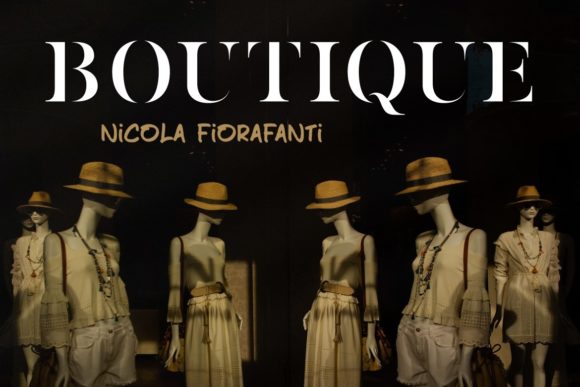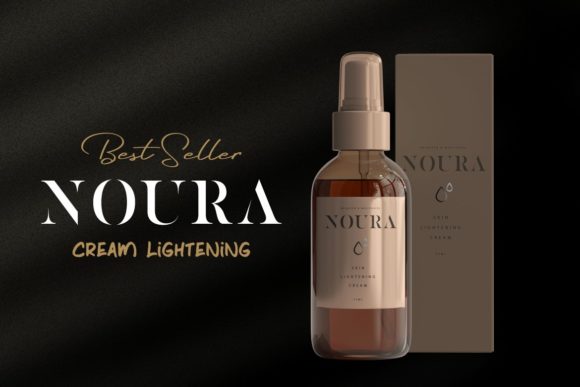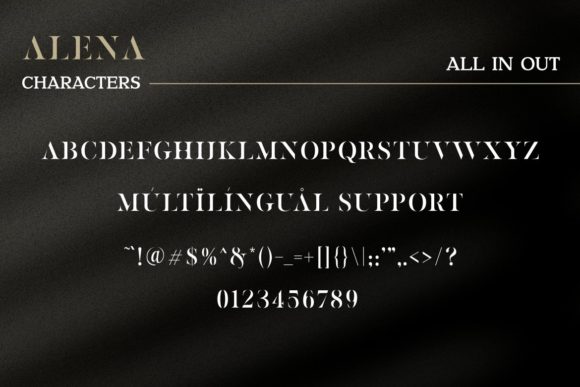
The Ultimate Guide to Alena Font: Elevate Your Designs with this Bold Serif Font
I’ll never forget the time I was working on a fashion branding project, and my client asked me to create a bold, eye-catching logo. I scoured the internet for the perfect font, but nothing seemed quite right. That was until I stumbled upon Alena Font. This cool, bold, and thick lettered serif font has been a game-changer for my designs, and I’m excited to share its awesomeness with you! 😊
An Honest Review of Alena Font
- ✨ Perfect for fashion branding: Alena Font’s bold and edgy vibe makes it ideal for fashion brands looking to make a statement.
- ✅ Easily legible: Despite its boldness, Alena Font remains highly legible, even at smaller sizes.
- 💥 High-impact headlines: This font is designed to make a statement, and it’s perfect for creating attention-grabbing headlines.
- 🤔 Limited use in body text: Due to its boldness, Alena Font may not be the best choice for body text, especially in longer paragraphs.
- ⚠️ Requires careful kerning: As with any bold font, kerning can be a bit tricky with Alena Font. Make sure to adjust the spacing to ensure optimal readability.
- Experiment with OpenType features, such as glyphs and stylistic alternates, to add more personality to your design.
The Backstory of Alena Font
Alena Font was designed by a team of typographers who wanted to create a bold and eye-catching font for fashion brands. Inspired by the world of high-end fashion, Alena Font combines classic serif elements with a modern, edgy vibe.
| Font Name | Alena Font |
| Author | fontherapy |
| What is Alena Font best used for? | Alena Font is perfect for fashion branding, editorial designs, and any project that requires a bold and eye-catching font. |
| Is Alena Font suitable for body text? | While Alena Font can be used for body text, it’s not recommended due to its boldness. It’s best used for headlines and titles. |
| Is Alena Font available in different weights? | Currently, Alena Font is available in a single weight. However, the design team may release additional weights in the future. |